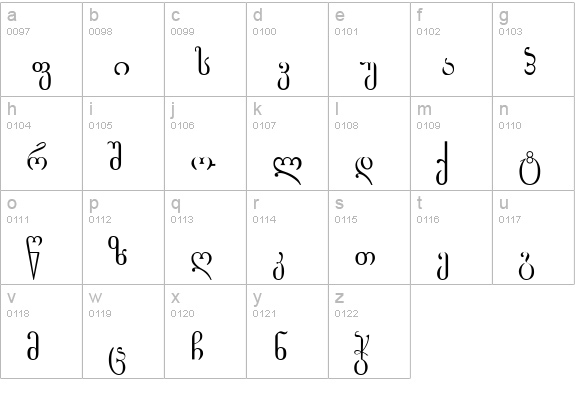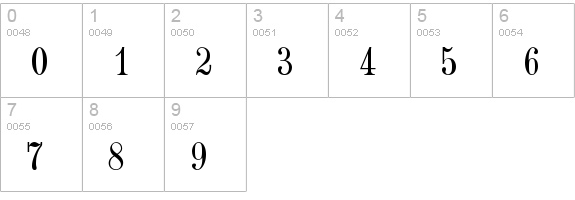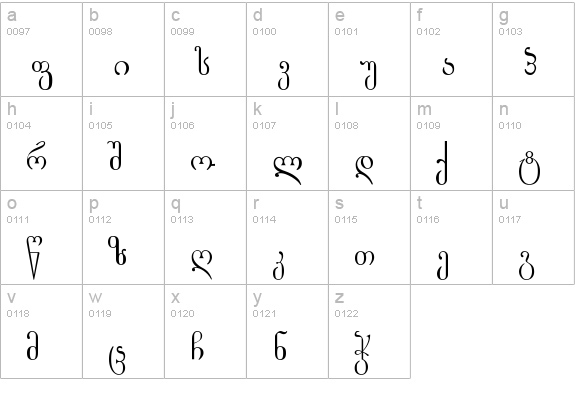
Gogebashvili-ITV Font Details
Introducing the exquisite and versatile Gogebashvili-ITV font, a modern and elegant typeface that seamlessly combines sophistication with a touch of playfulness. This font exudes a sense of creativity and professionalism, making it the perfect choice for a wide range of design projects. The Gogebashvili-ITV font features clean lines and sharp edges, giving it a sleek and contemporary look that is sure to make your text stand out. Whether you are designing a logo, crafting a poster, or creating a stunning website, this font will add a touch of class and style to your work. Best of all, the Gogebashvili-ITV font is completely free to download at FontsMarket.com. This means that you can access this beautiful typeface without any cost, making it a valuable addition to your font collection. Don't miss out on the opportunity to elevate your designs with the Gogebashvili-ITV font – download it today and unleash your creativity!